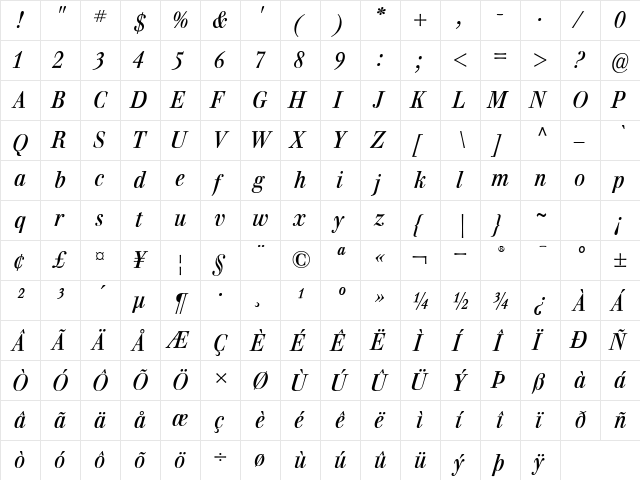
Walburn Italic
Walburn takes a measured approach to typography — its balanced proportions and neutral character make it a reliable workhorse for both digital and print work. The slanted form adds forward momentum and visual energy.
Pro Tip: Use Walburn for emphasis, pull quotes, and subheadings where its slanted energy can add rhythm to the layout.